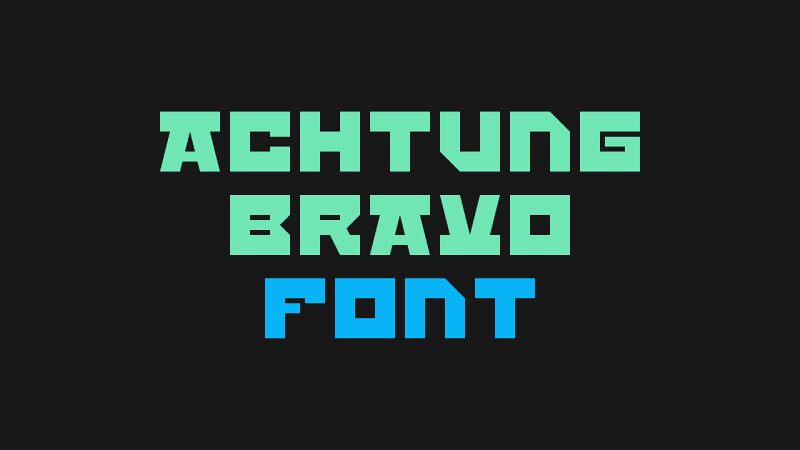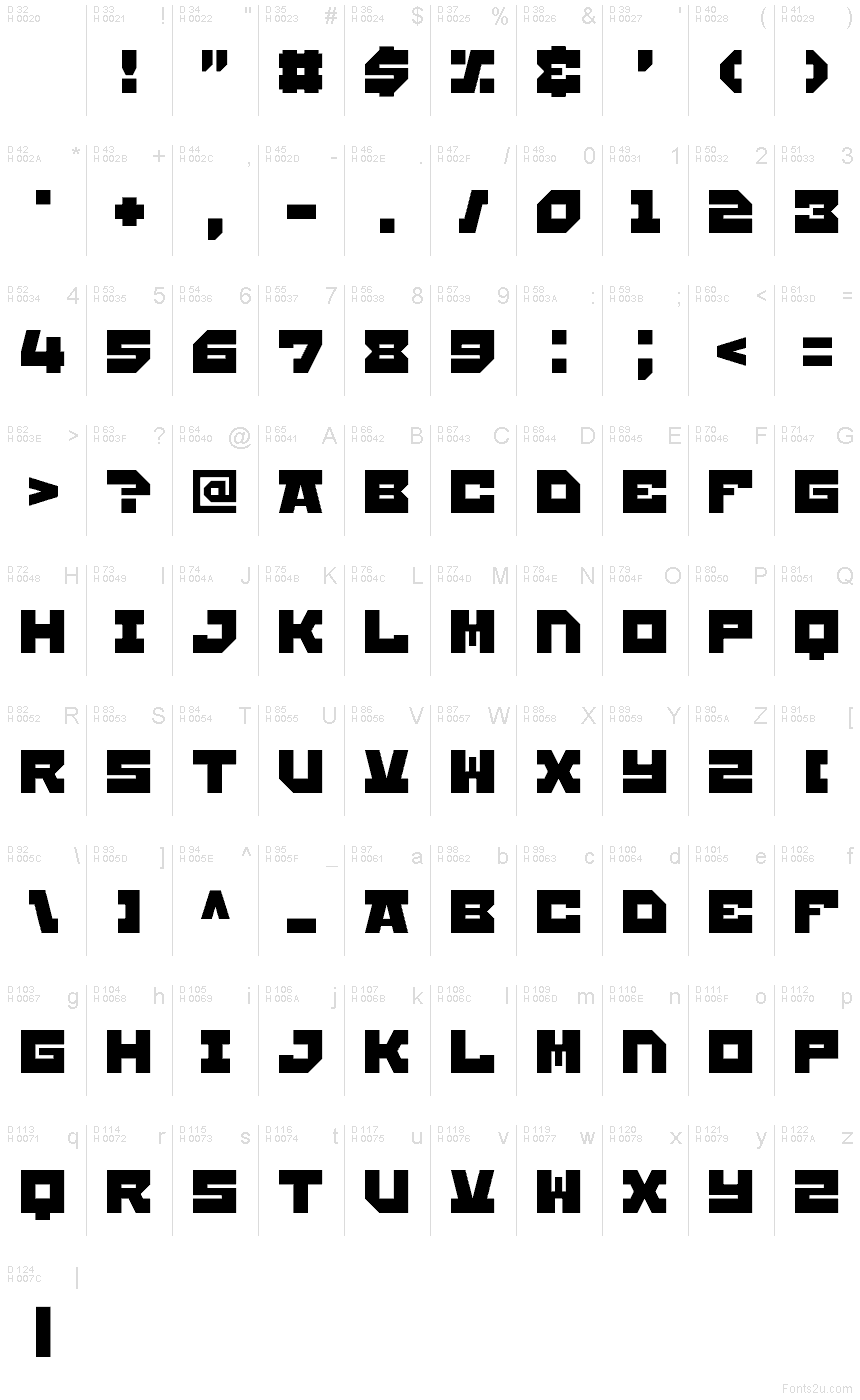
Achtung Bravo
Achtung Bravo font by GGBotNet is a display typeface with bold weight and expanded width. Its strong geometric forms and rigid structure give it an industrial feel influenced by the modernist movement. The typeface has an impactful presence thanks to its meticulous details that make it stand out in all kinds of projects, formal or informal.
This raw yet striking and readable free display font can be used for poster titles, magazine headlines, book covers, product labels, packaging designs, t-shirt prints, digital artworks, typographic logos among many others. Use it at large sizes where its shapes will prominently add charisma to the text.